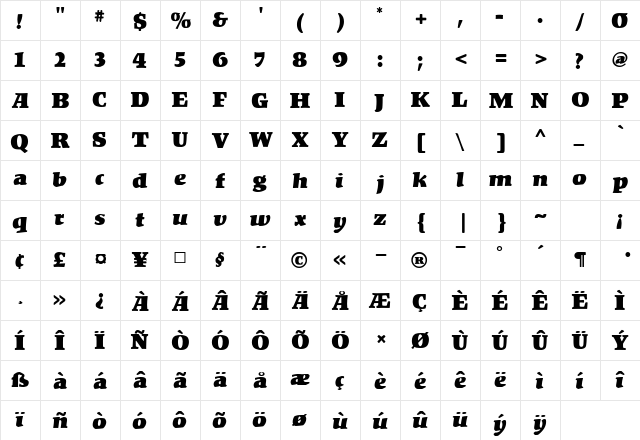
Kompakt MF Regular
Design Context for Kompakt MF Typeface
Kompakt MF offers clean, dependable letterforms without strong stylistic allegiance, making it a practical choice for designers who need flexibility.
Pro Tip: Use Kompakt MF in both headline and body roles to test its range before committing to a single application.